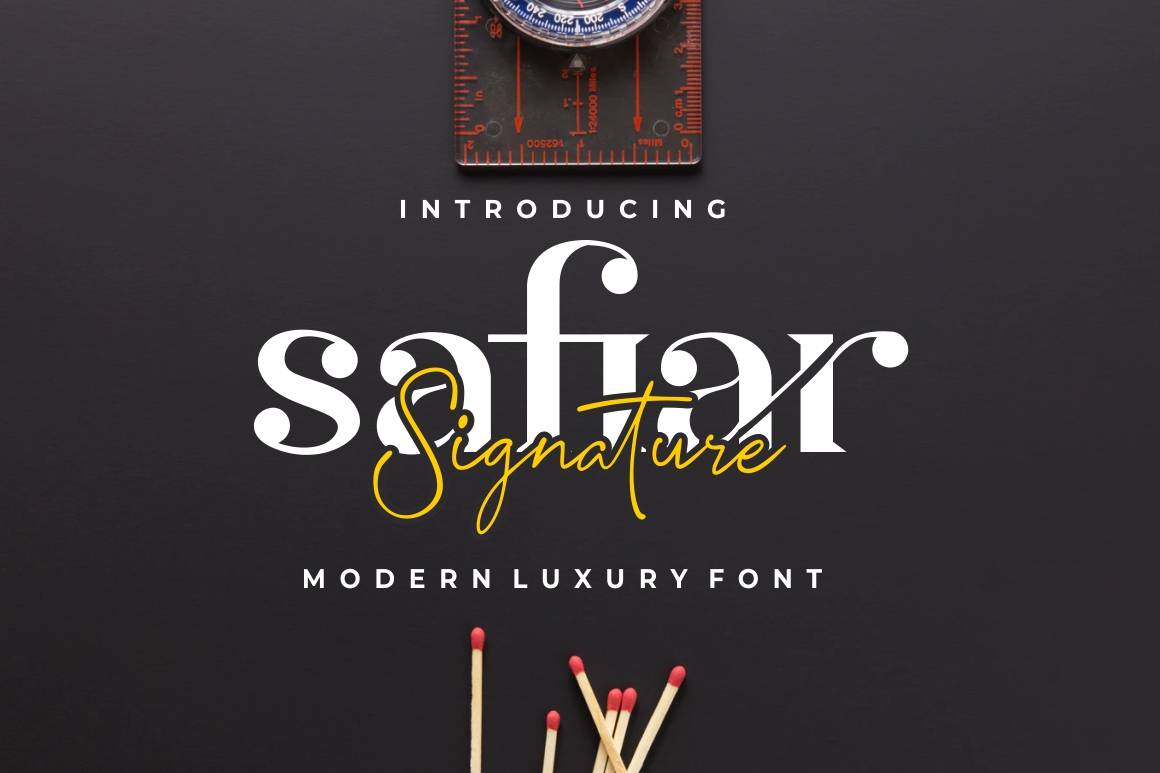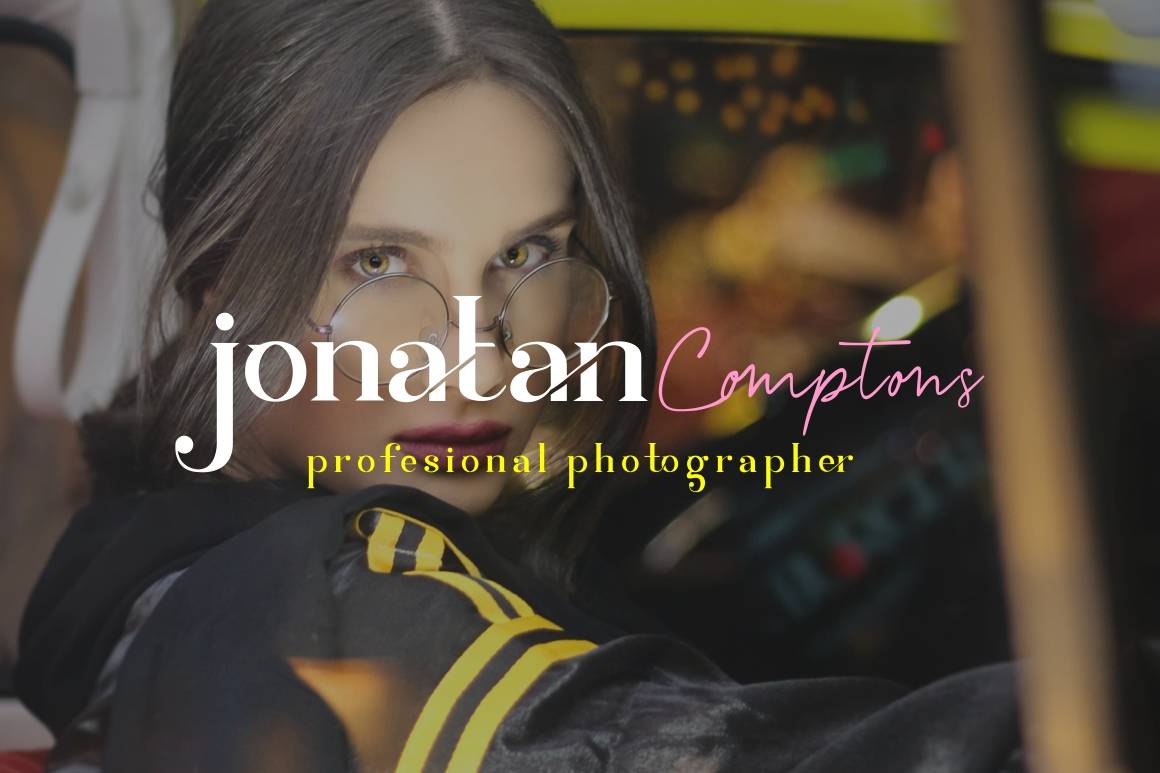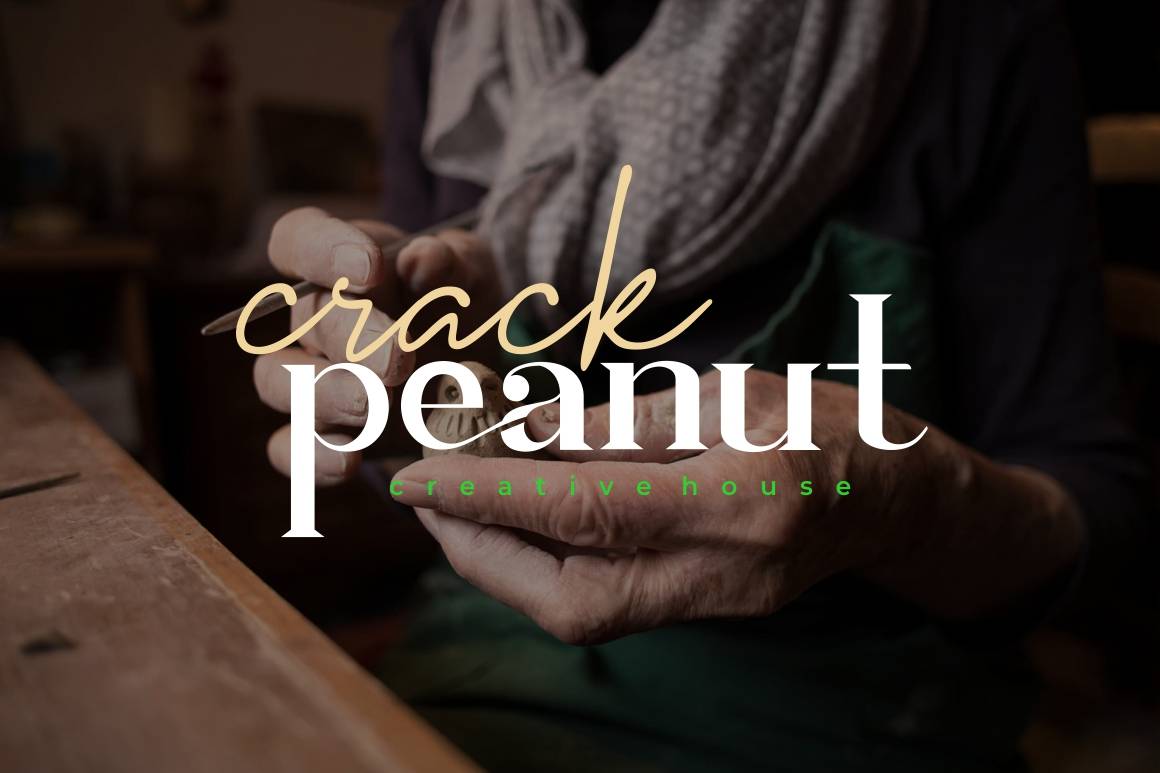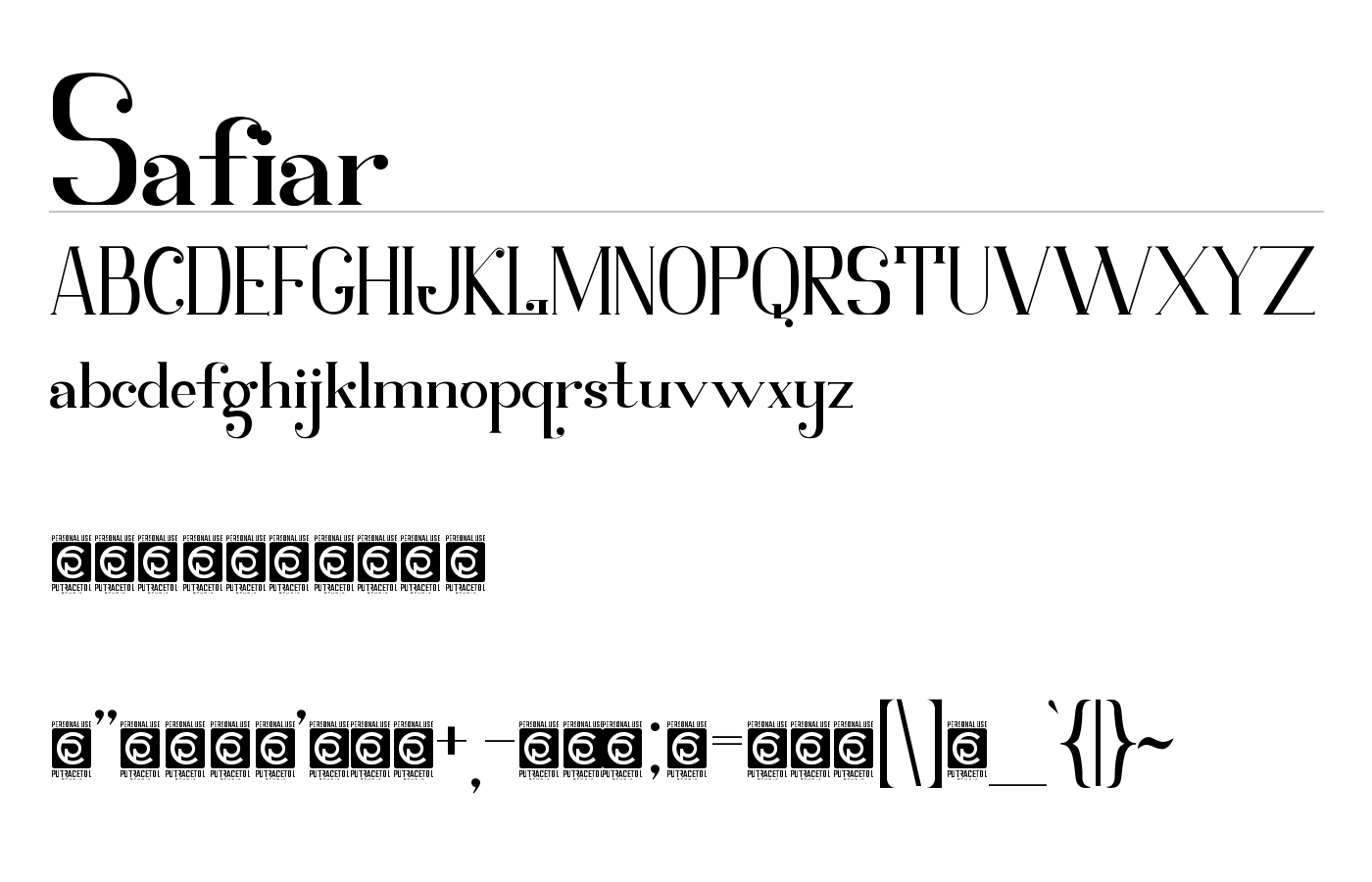
Safiar is a delicate serif font with a unique blend of modern elegance and vintage charm, featuring tall, narrow letterforms and distinctive curled terminals that add flair and personality. Its high contrast between thick and thin strokes gives it a refined and sophisticated look, perfect for fashion branding, editorial headlines, and luxury packaging where a stylish and artistic touch is desired. This font stands out with its artistic details while maintaining readability, making it ideal for designs that seek to convey creativity and elegance.
Safiar Font
About Safiar Font